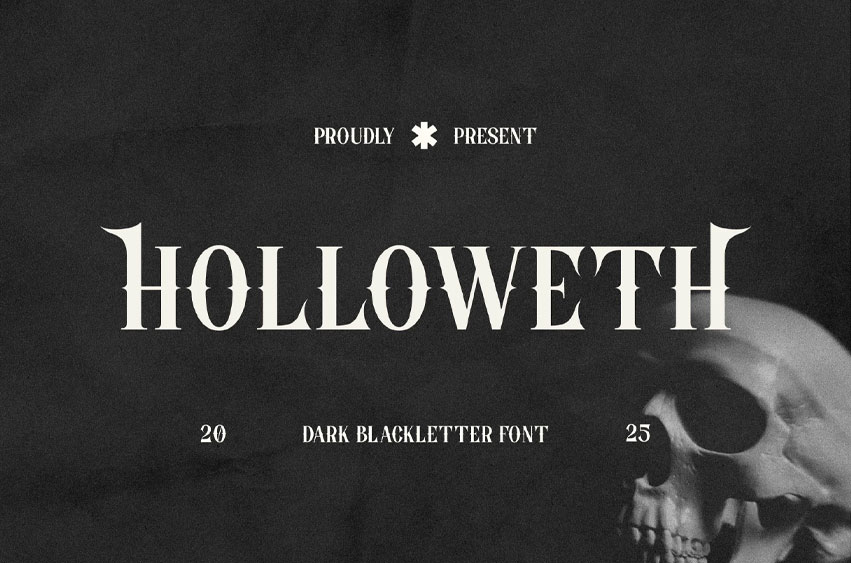
Holloweth Font
Holloweth Font is a gothic–serif display font crafted for impact. Its hollow (outline) construction blends the drama of classic blackletter with the sophistication of modern serif detailing—resulting in headlines and logos that feel premium, edgy, and unmistakably memorable. From whiskey labels and tattoo motifs to esports branding, streetwear drops, and collectible posters, Blackletter Holloweth delivers a strong visual voice without sacrificing legibility.
Designed for creators who need statement typography, this font features clean contours, balanced spacing, and a sleek outline aesthetic that shines on both dark and light backgrounds. Use it big and bold for landing page hero text, editorial covers, certificates, signage, album art, or packaging systems. Pair it with a minimal sans for contrast, or lean into vintage textures for rich, heritage-inspired layouts.
Whether you’re building a brand identity or a high-impact presentation, Blackletter Holloweth gives your work an elevated, gallery-ready look in seconds.